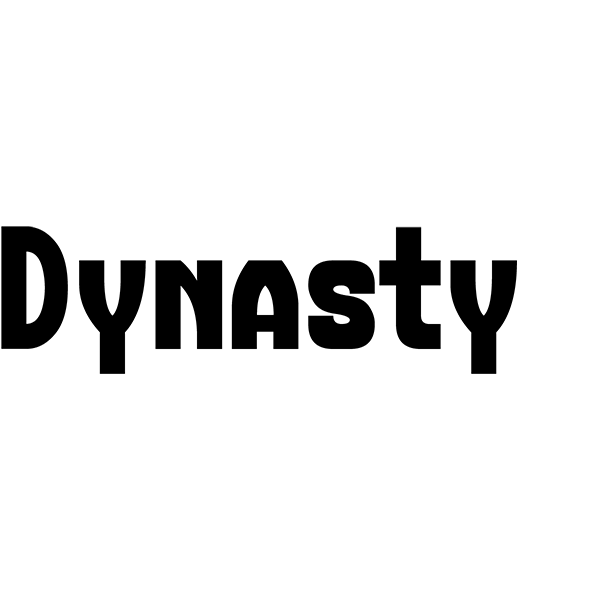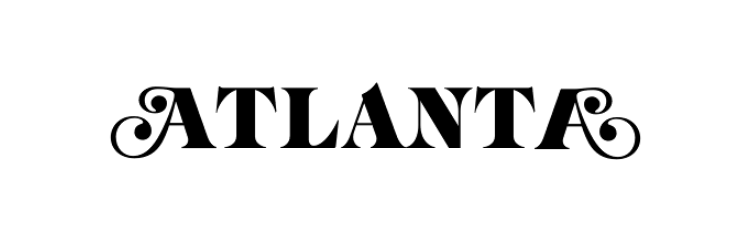
Tv Show Fonts. The text generators section features an array of online tools for you to create and edit text graphics easily online; The very first the office mockumentary sitcom was aired in the uk and was created by ricky gervais and stephen merchant.
Star jedi font free download. Star jedi font is a cute display typeface. A stylish font based on the tv show charmed.
The Very First The Office Mockumentary Sitcom Was Aired In The Uk And Was Created By Ricky Gervais And Stephen Merchant.
It was designed by boba fonts and used popularly for many purposes. The fonts of popular tv shows | webdesigner depot. A serif font by bruce marx, based of the bbc tv series black adder ii.
The Fonts Of Popular Tv Shows.
A serif font by bruce marx, based of the bbc tv series black adder ii. Rugrats is a font based on the title logo from the tv show rugrats and it's the famous fonts free font of the day! The world's greatest comic book fonts explode onto the screen!
A tv show font inspired by the hong kong film series mister vampire. Star jedi font free download. By fontspace august 2, 2020.
You May Have Seen These Famous Faces On Your Favorite Video Game Scoreboards, And.
The Fonts In Use Section Features Posts About Fonts Used In Logos, Films, Tv Shows, Video Games, Books And More;
Some use photographic flairs that draw out key themes of the show (glee), while others are part of graphics that tell a story (batman). A cartoon font dedicated to the children's tv show ren & stimpy. Download all 4 “tv show” fonts unlimited times with a single envato elements subscription.